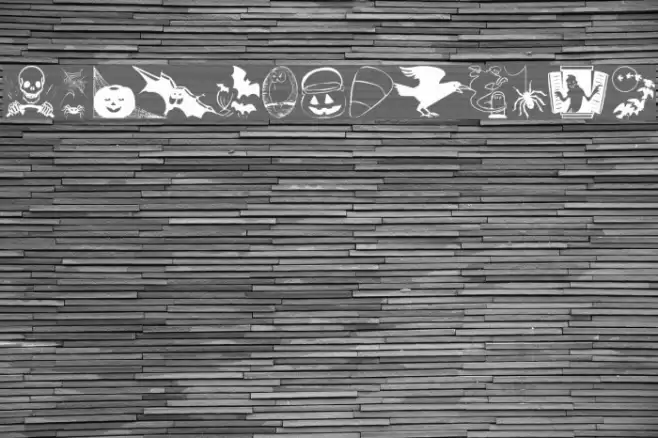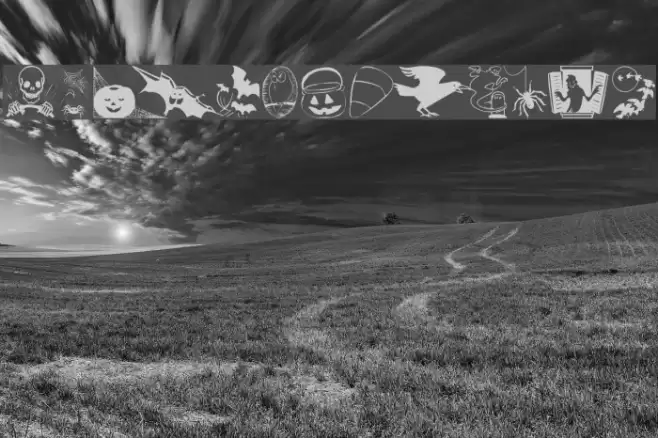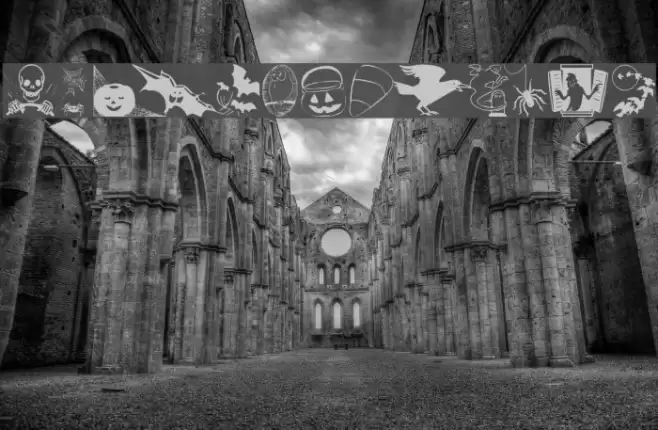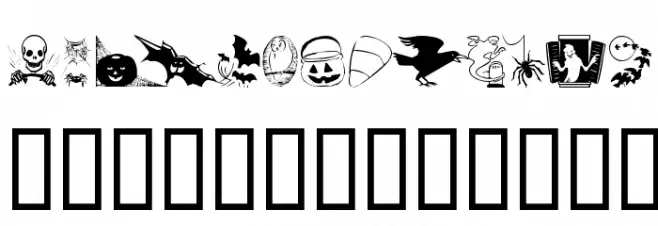
KR Bootown Font
KR Bootown Description
This is a decorative font featuring a variety of Halloween-themed illustrations. Each character is represented by a unique graphic, such as skulls, bats, pumpkins, and other spooky elements. The style is playful and thematic, perfect for seasonal designs. The characters are bold and visually striking, making them suitable for attention-grabbing projects. The font does not follow traditional letterforms, focusing instead on creative and thematic imagery.
A decorative Halloween-themed font with playful and spooky illustrations from Uncategorized fonts.
- Proposed Projects: Ideal for Halloween party invitations, themed posters, greeting cards, and festive decorations.